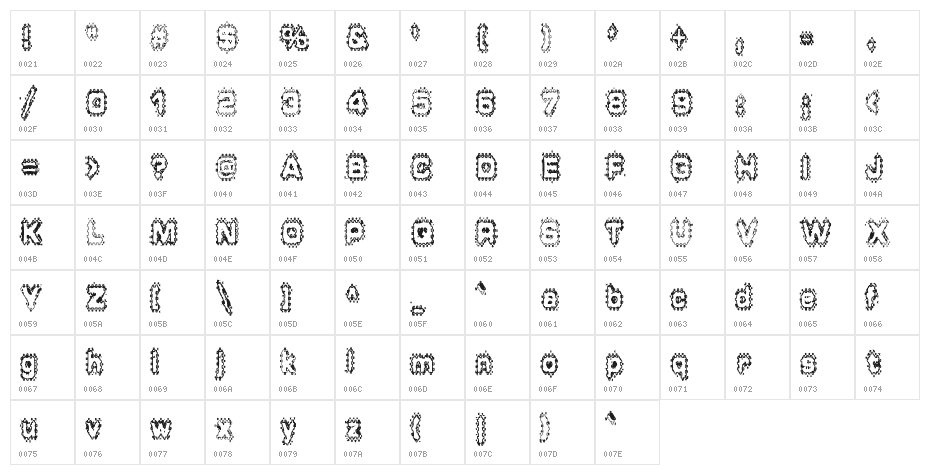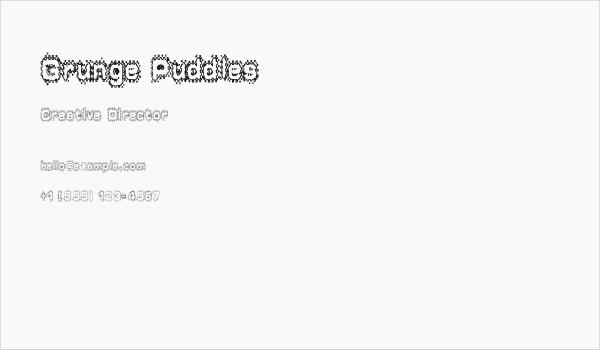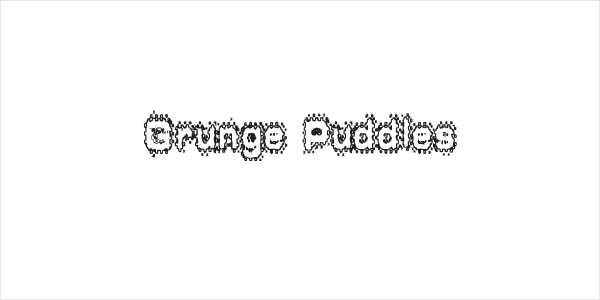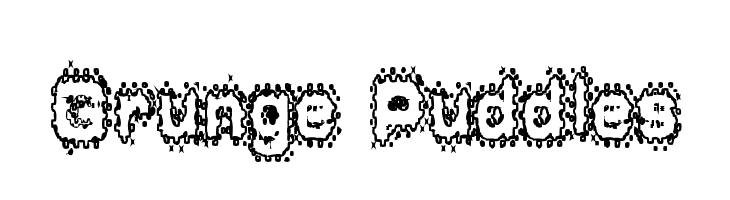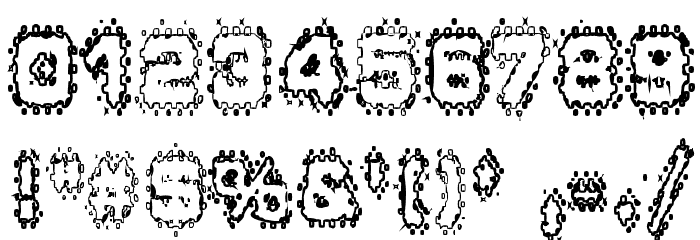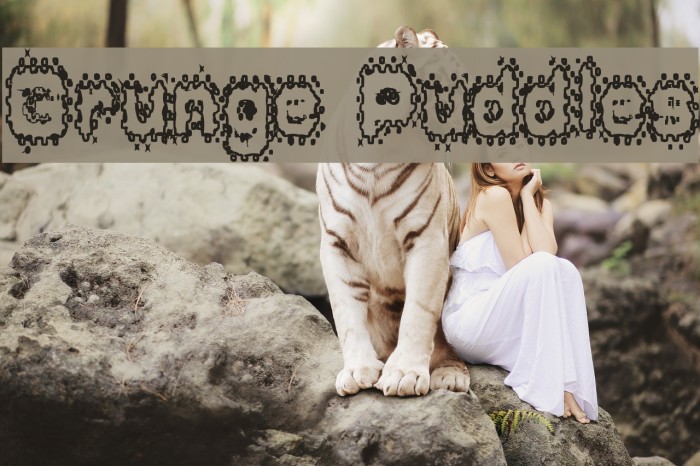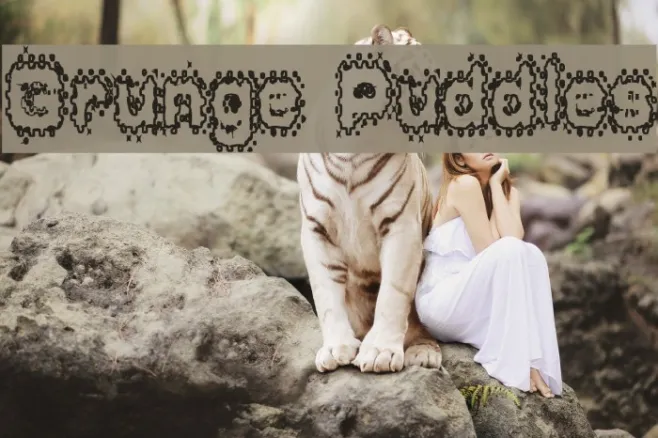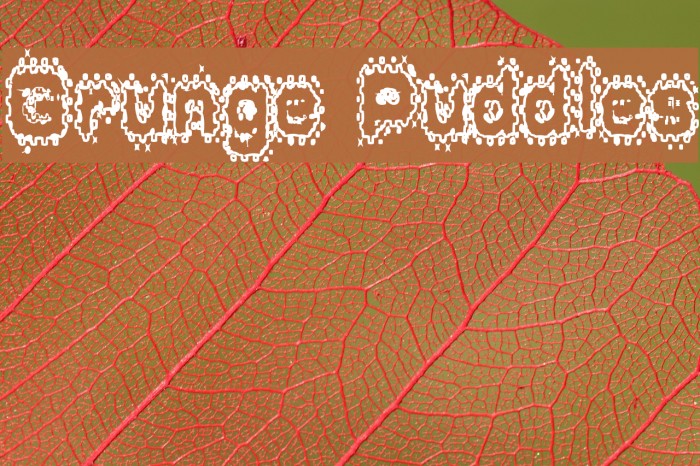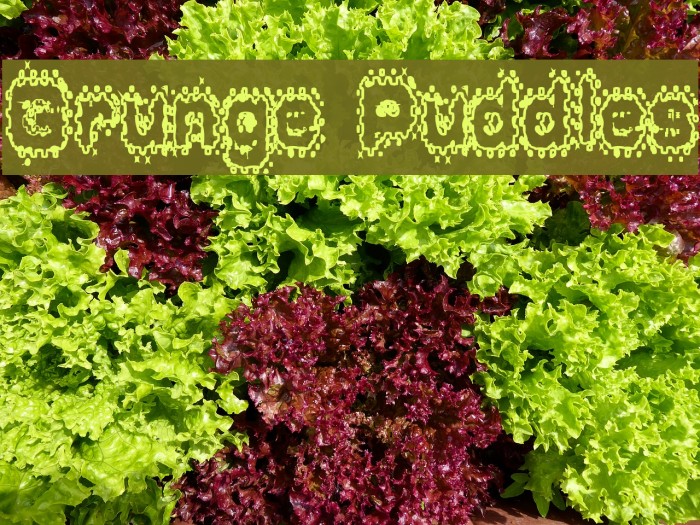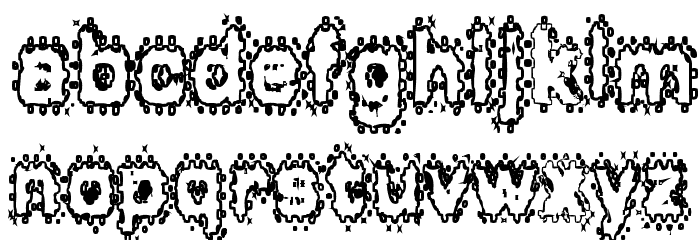
Grunge Puddles Font
Grunge Puddles Description
This font features a unique and playful design with a grunge aesthetic. Each character is surrounded by irregular, puddle-like shapes, giving it a textured and organic appearance. The letters are bold and have a hand-drawn feel, with varying thicknesses that add to the overall chaotic yet artistic style. The font includes both uppercase and lowercase letters, numbers, and a selection of special characters, all maintaining the same distinctive grunge pattern. This font is perfect for projects that require a creative and unconventional look.
| Overall Style | Grunge, Artistic |
| Proposed Projects | Ideal for posters, album covers, graffiti art, and any project needing a bold, artistic touch. |